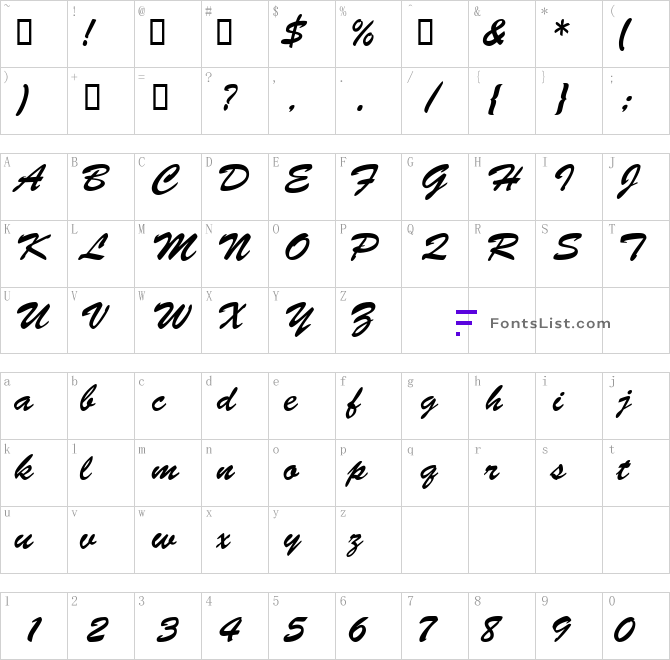
- Font Name:BarcBrushDB
BarcBrushDB-Bold.ttf is a very beautiful artistic font, BarcBrushDB-Bold.ttf is widely used in the design and printing of various books and pictures,BarcBrushDB-Bold.ttf has a strong visual impact,BarcBrushDB-Bold.ttf is a commonly used font in newspapers, magazines and books, and is used in posters, e-commerce Poster design, store design, logo design, font design and other fields.BarcBrushDB-Bold.